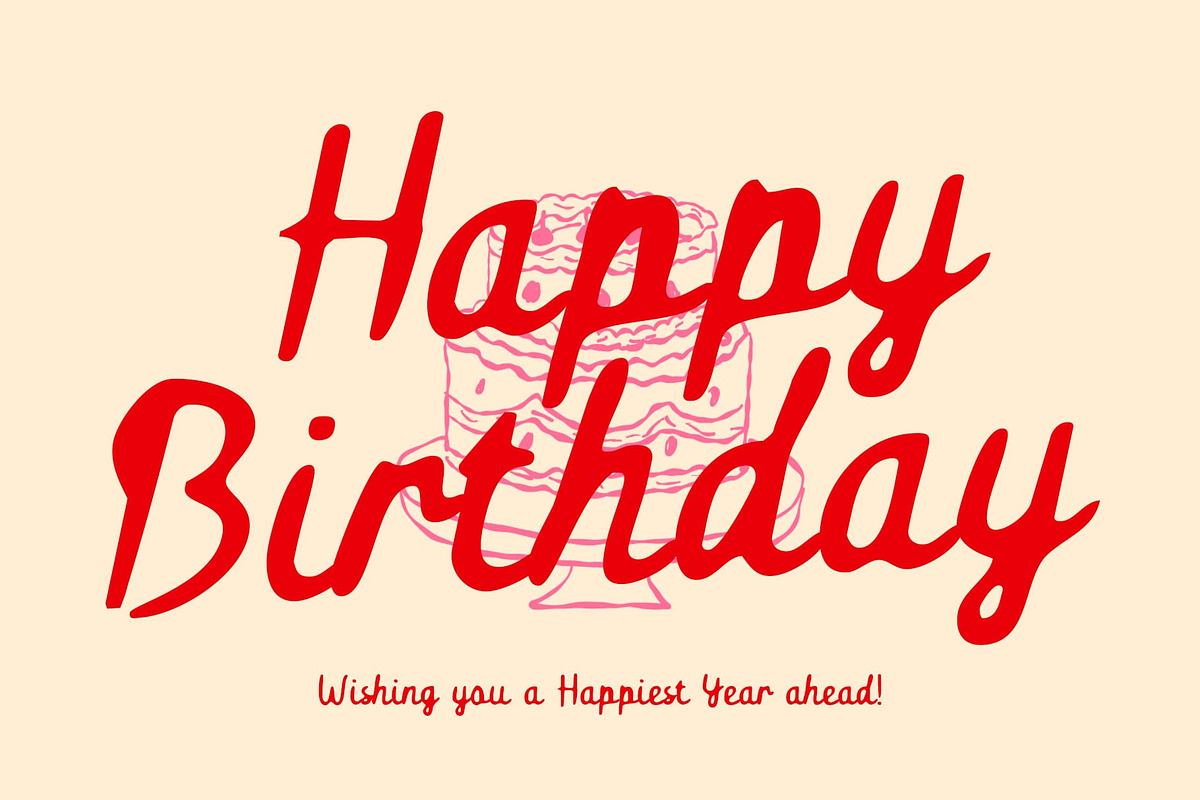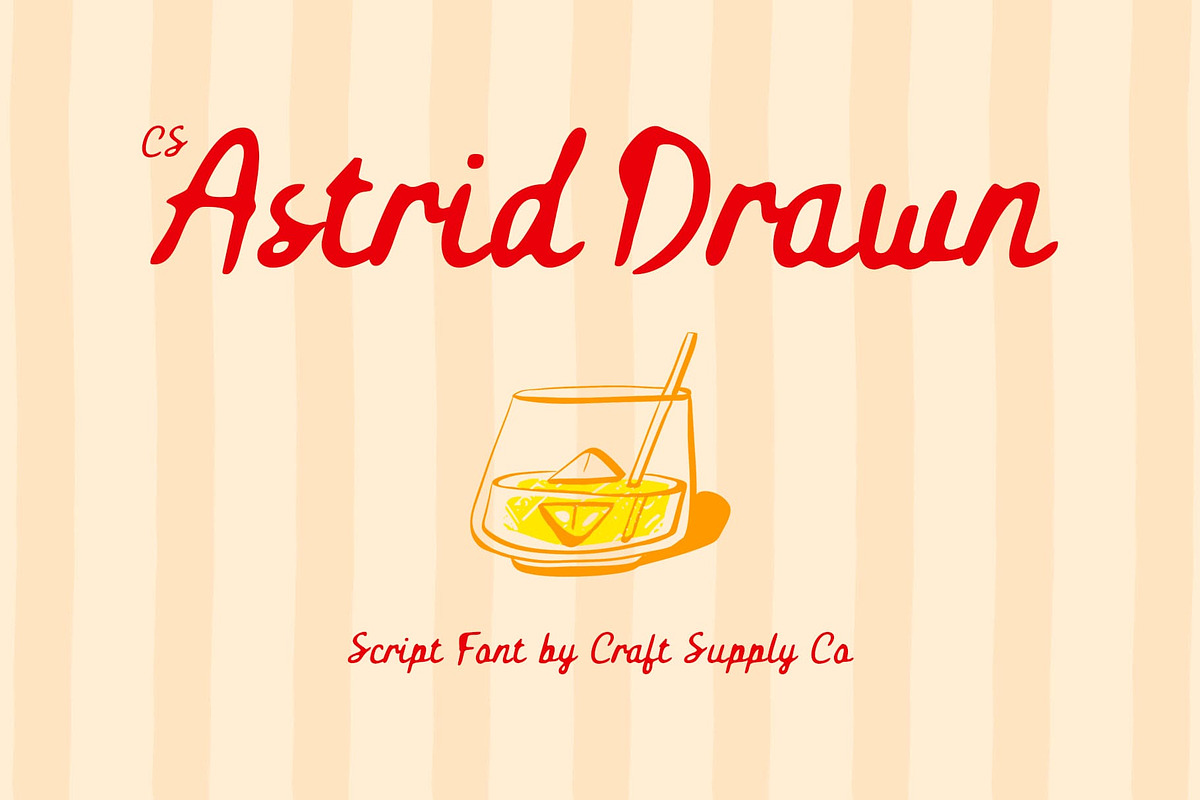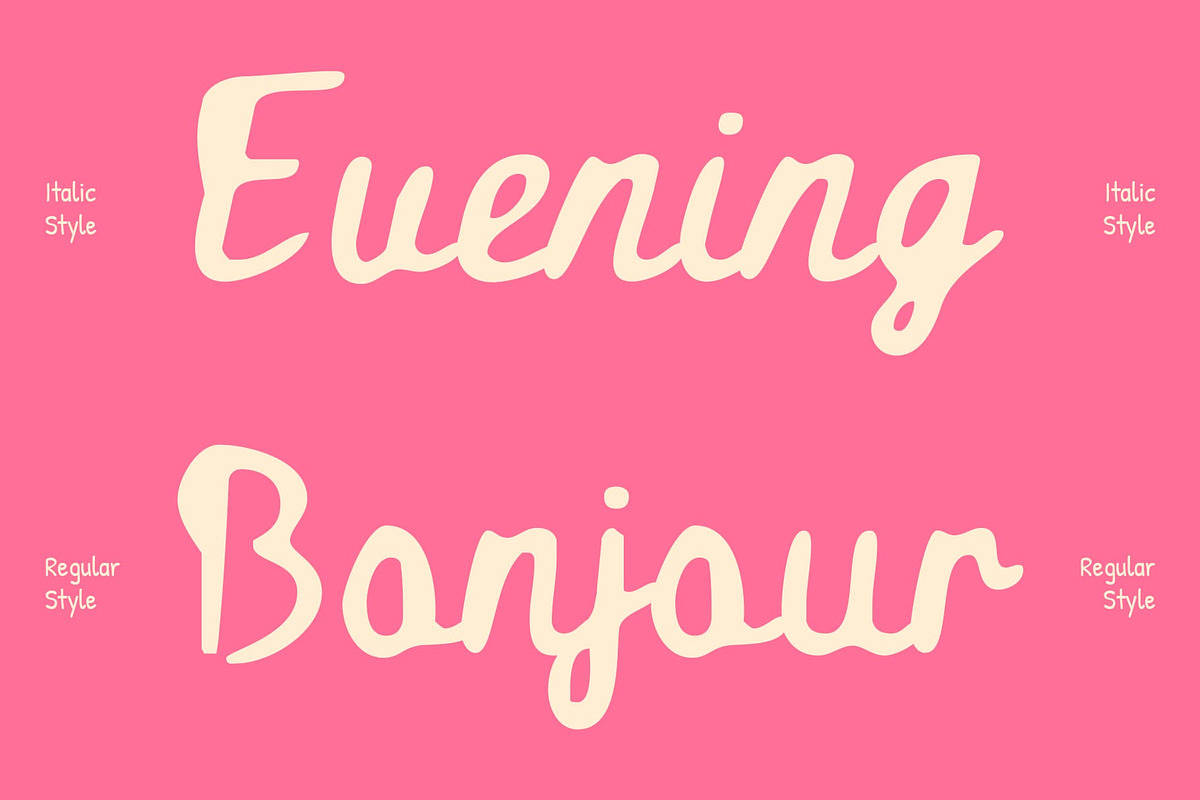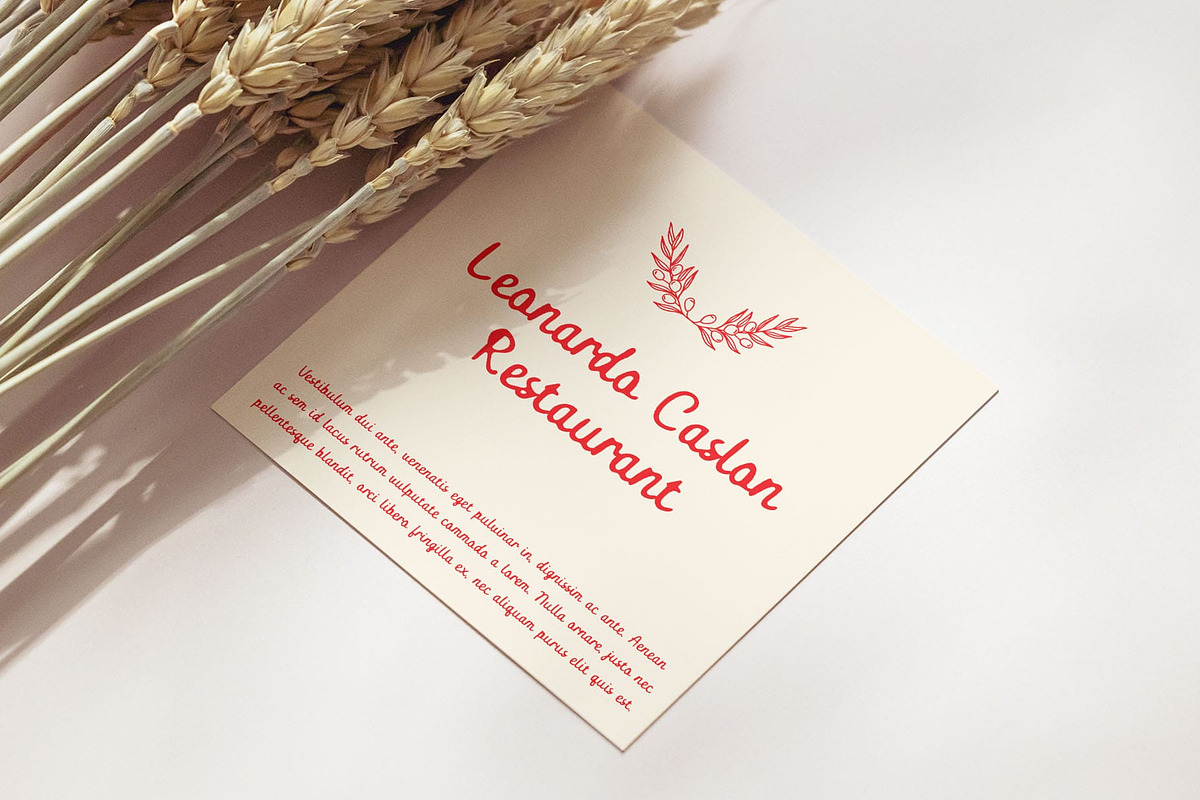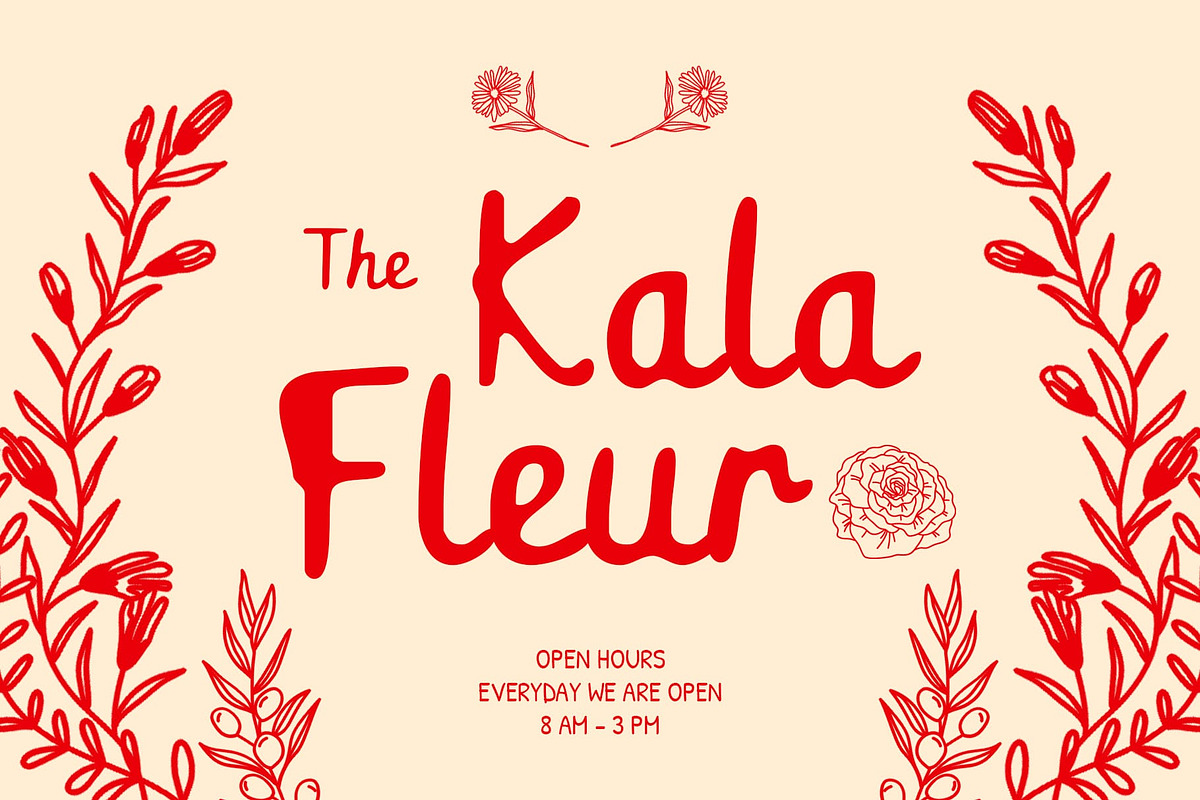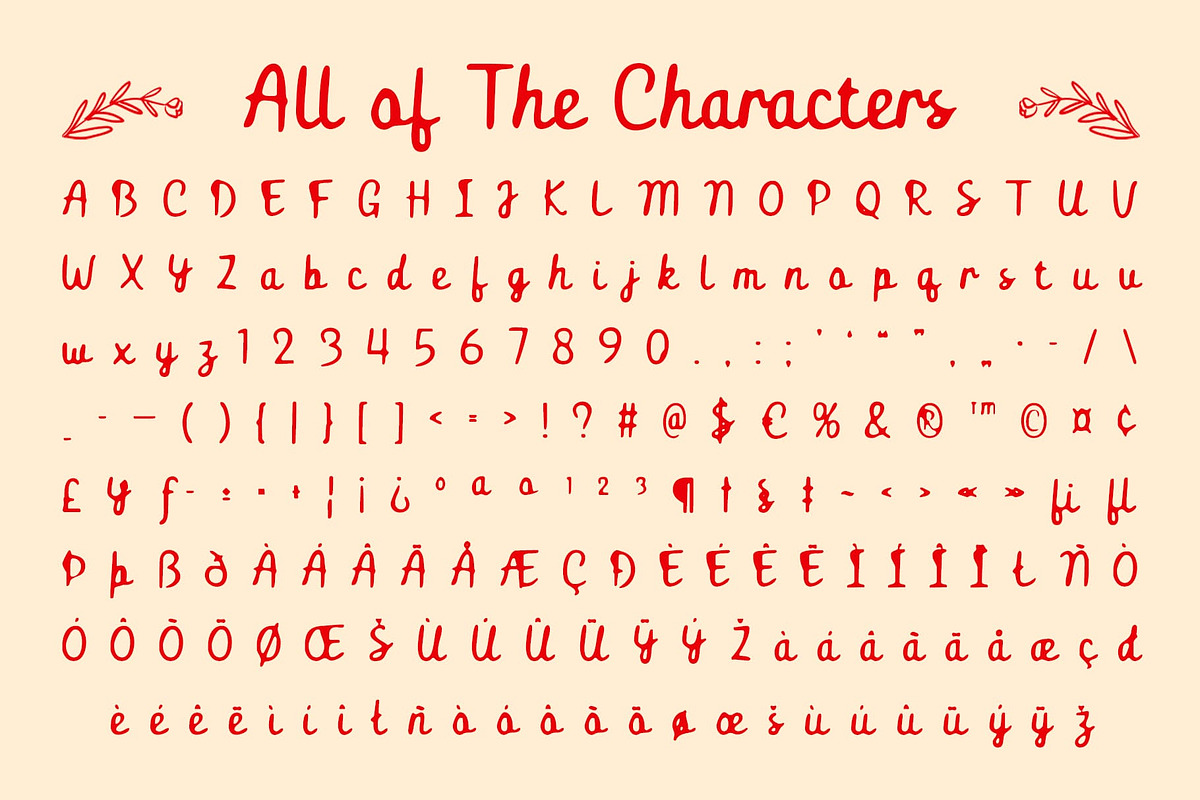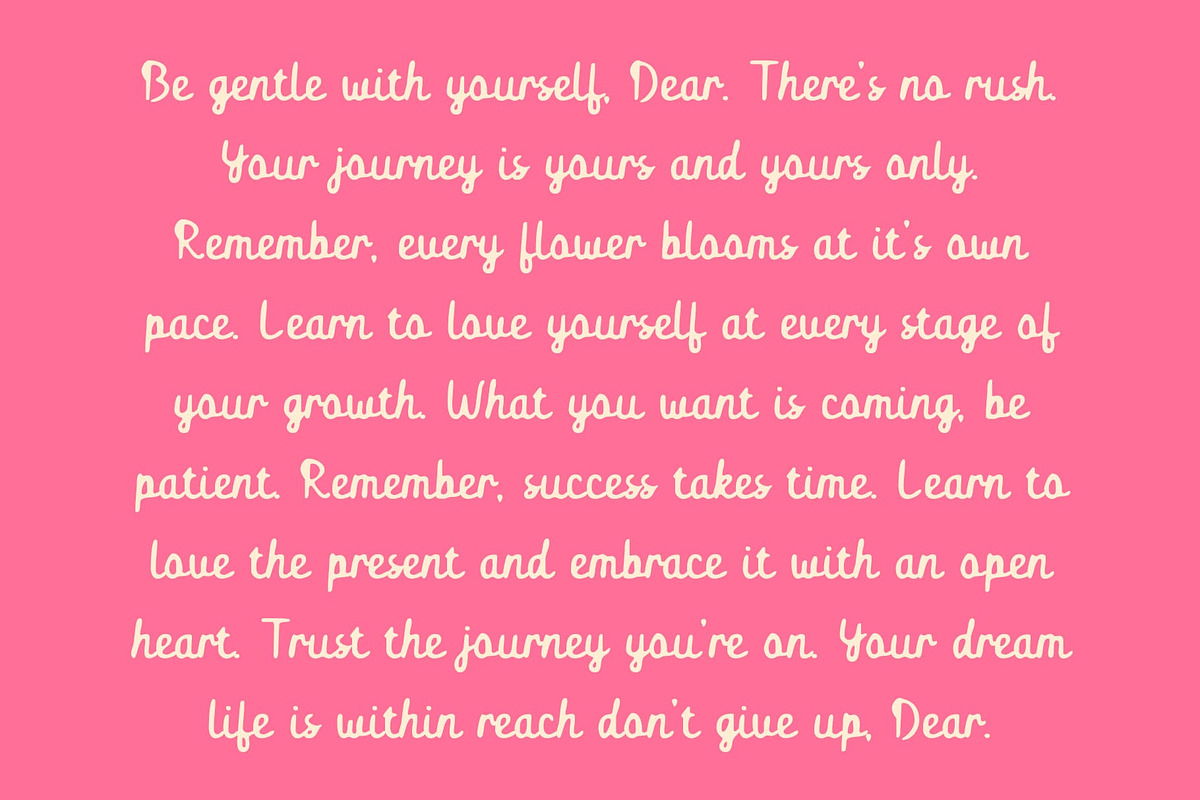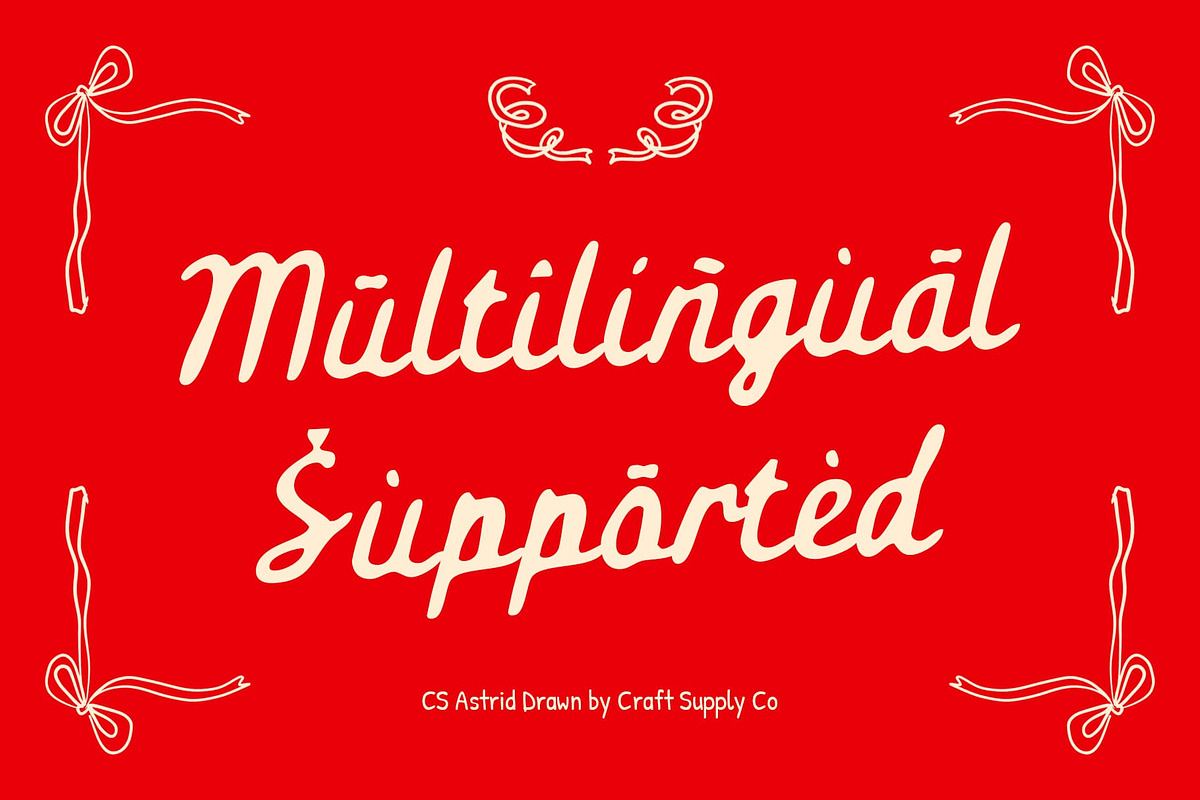
CS Astrid Drawn
CS Astrid Drawn – Italian Script: Where Romance Meets Handcrafted Sophistication
Italian Script with Romantic Flow This is a graceful Italian script font that embodies the charm of Mediterranean aesthetics. Its flowing curves and refined strokes create a romantic impression, perfectly balancing beauty and readability. Every letter carries a sense of rhythm, making it ideal for designs that seek timeless sophistication.
Drawn Effect for Unique Expression What sets this font apart is its drawn handmade effect, which infuses the font with authenticity and artistry. This handcrafted detail enhances its charm, adding warmth and individuality to each character. The subtle texture gives the script a natural elegance, making it more expressive and captivating in any creative application.
Perfect for Weddings, Branding, and Luxury Design From wedding invitations that need romance and refinement, to branding projects that aim for high-class appeal, font delivers. It also works beautifully in luxury packaging, editorials, and fashion graphics, offering versatility while maintaining its stylish charm. Its flowing Italian influence ensures it always communicates grace and sophistication.
Mediterranean Sophistication for Modern Projects This is not just a font it’s a celebration of elegance and culture. With its roots in Mediterranean artistry, combined with a modern drawn touch, it bridges the past and present seamlessly. This unique quality makes it an invaluable choice for designers looking to add romance, sophistication, and originality to their work.